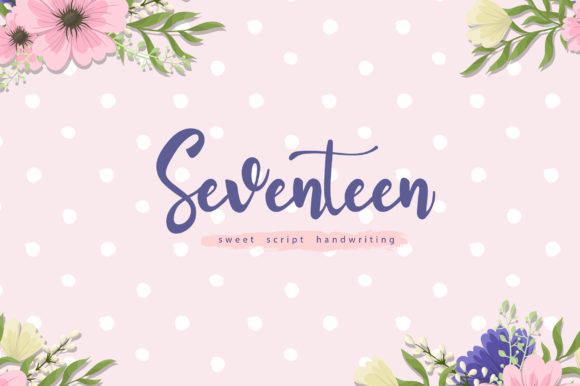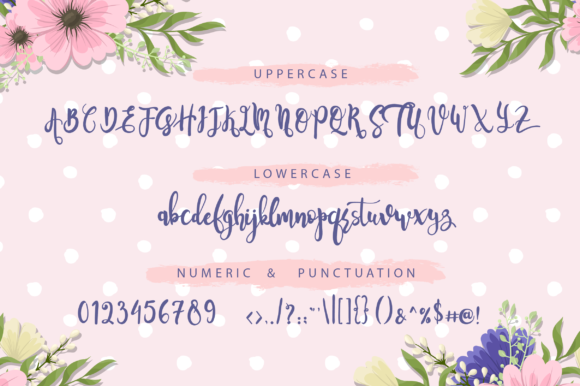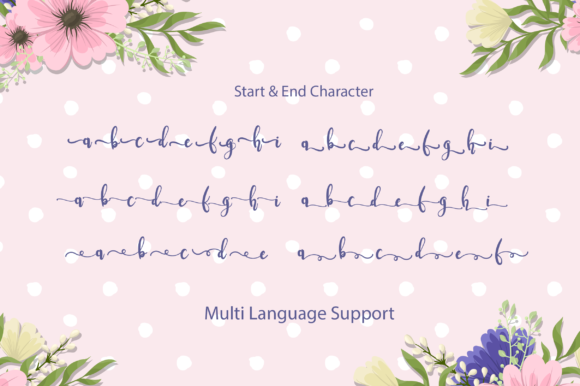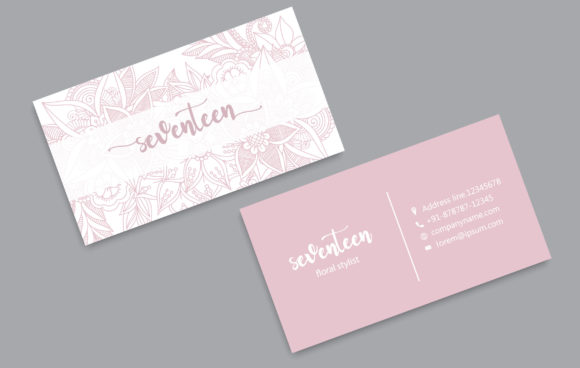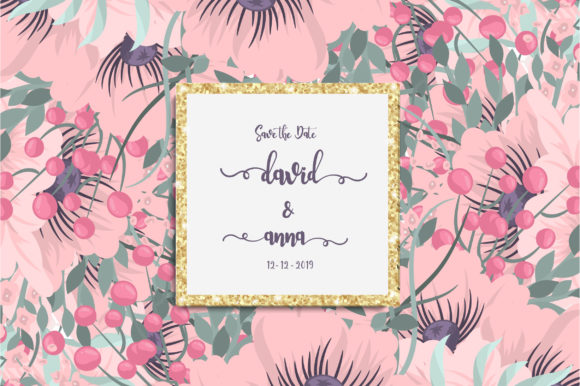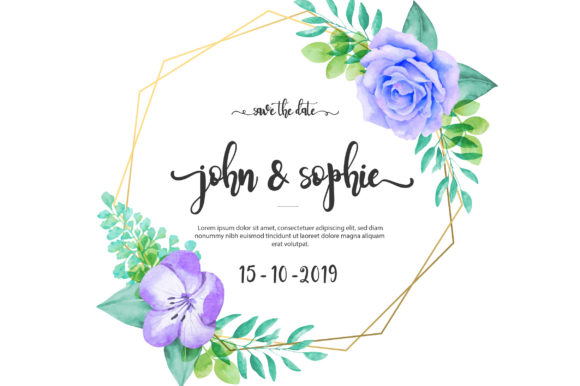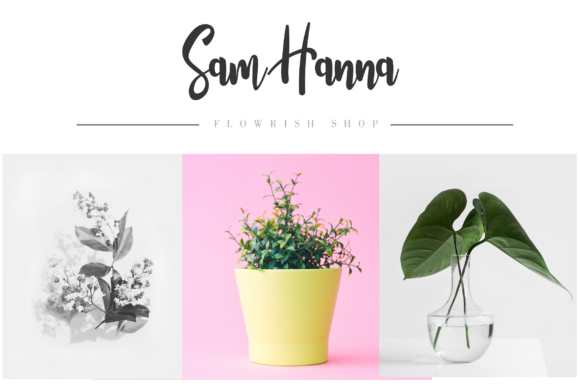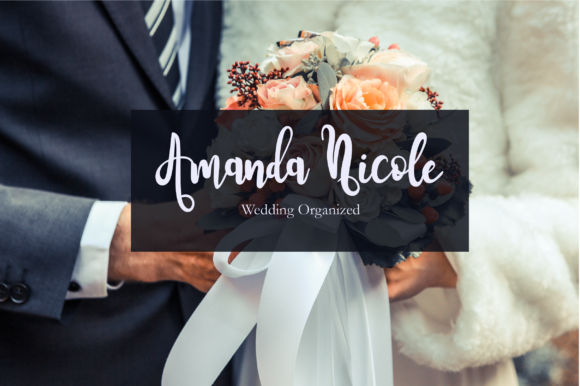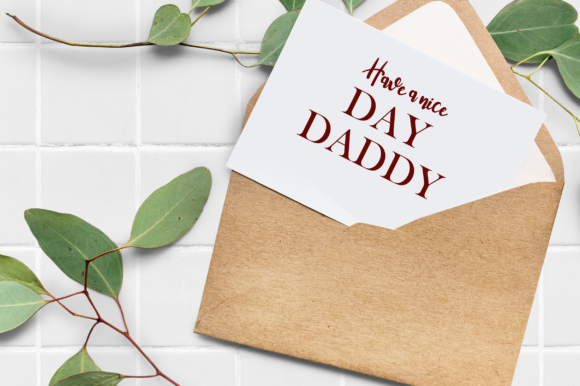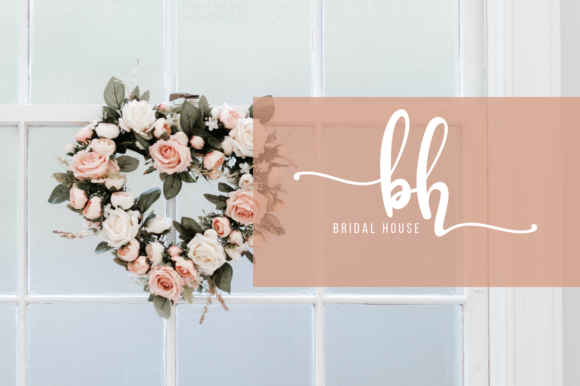
Seventeen Font
About Seventeen Font
The Seventeen is a sweet script font with a fancy, yet fun look. It was handwritten which makes it perfect for adding an unique and personal feel to your designs